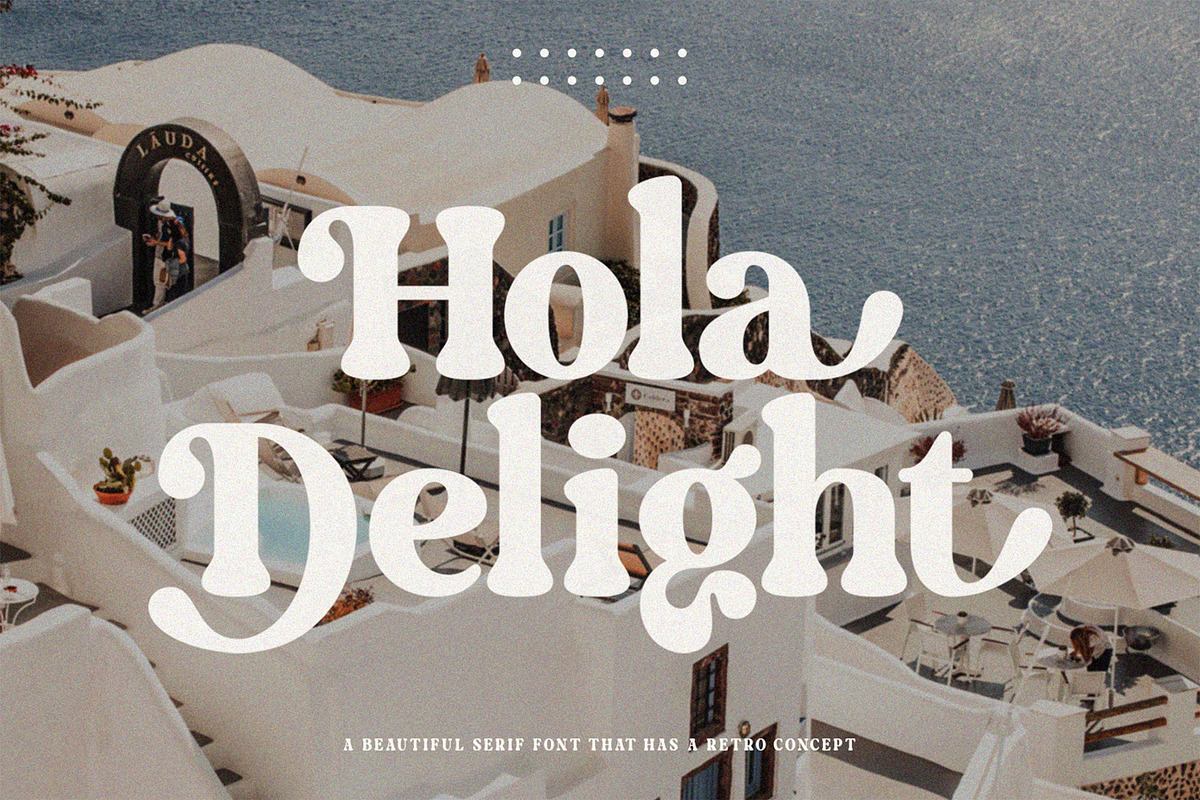
Hola Delight | Vintage Serif Font Free Download
Add timeless charm and character to your designs with Hola Delight | Vintage Serif Font Free Download — a stylish serif typeface that captures the essence of vintage typography. Perfect for branding, retro logos, packaging, invitations, posters, and any project that calls for a classic yet refined aesthetic.
Hola Delight combines elegant serif details with a warm, inviting feel, making it ideal for creative, nostalgic, and sophisticated designs. It includes uppercase and lowercase letters, punctuation, numerals, and multilingual support, giving you the flexibility to create compelling and beautiful visuals.